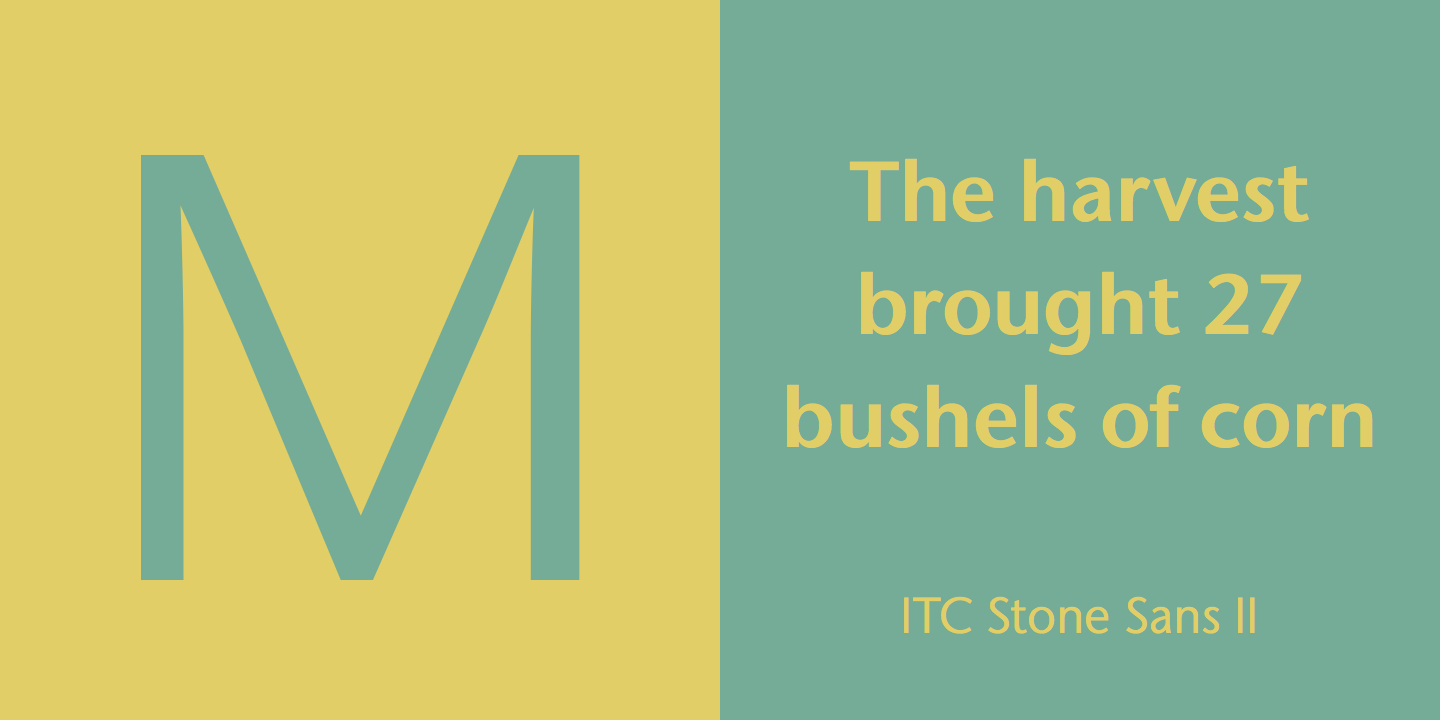
ITC Stone Sans II Font is ideal for numerous design applications including corporate branding, professional documentation, annual reports, business presentations, educational materials, healthcare communications, government publications, signage systems, digital interfaces, and comprehensive brand identity projects. This refined sans-serif typeface excels in projects that require humanistic warmth combined with contemporary professionalism while maintaining exceptional readability across both extensive text applications and impactful display purposes.
What makes ITC Stone Sans II Font truly exciting is its sophisticated evolution of humanist sans-serif design that perfectly balances organic warmth with systematic functionality and modern clarity. The font features carefully refined letterforms with subtle calligraphic influences and optimized proportions that create an approachable yet authoritative presence. Its humanistic character makes it an exceptional choice for designers who need versatile typography that communicates trustworthiness and accessibility while maintaining professional credibility across diverse applications. The font's distinctive personality helps create welcoming brand experiences that resonate with broad audiences seeking reliable, human-centered communication.
The ITC Stone Sans II Font family typically includes comprehensive weight variations ranging from light to black, along with corresponding italic styles that enhance the font's expressive capabilities. The family often features light, regular, medium, semibold, bold, and black variations, each maintaining the font's humanistic integrity while offering different levels of visual emphasis and typographic hierarchy. Many versions include extended character sets with multilingual support, advanced OpenType features, and carefully optimized spacing that ensures professional performance across complex international typographic requirements.
When you're looking for a typeface that embodies humanistic design principles with contemporary functionality, ITC Stone Sans II Font Free Download provides designers with access to premium sans-serif typography that represents refined evolution in readable, approachable design. This font has gained widespread adoption among healthcare organizations, educational institutions, and design professionals who appreciate its ability to communicate warmth and reliability while maintaining professional excellence in their mission-critical communications.
The font's humanistic construction makes it particularly effective for organizations in healthcare, education, non-profit, government, and professional services sectors where human connection and accessible communication are fundamental operational values. Its excellent legibility across various sizes ensures optimal performance across different media, from detailed patient information to large-scale wayfinding systems. The comprehensive character set includes essential punctuation, numerals, and specialized symbols that support complex multilingual and technical communication requirements.
ITC Stone Sans II Font demonstrates exceptional attention to humanistic typography principles, with consistent organic flow, balanced proportions, and refined letterforms that create harmonious approachable communication. Whether you're developing healthcare branding, designing educational materials, or creating accessible public communications, this font provides the warmth and reliability that successful human-centered design projects require.
The font's timeless humanistic appeal ensures lasting effectiveness while its contemporary refinement helps organizations establish trustworthy positions in service-oriented market environments.